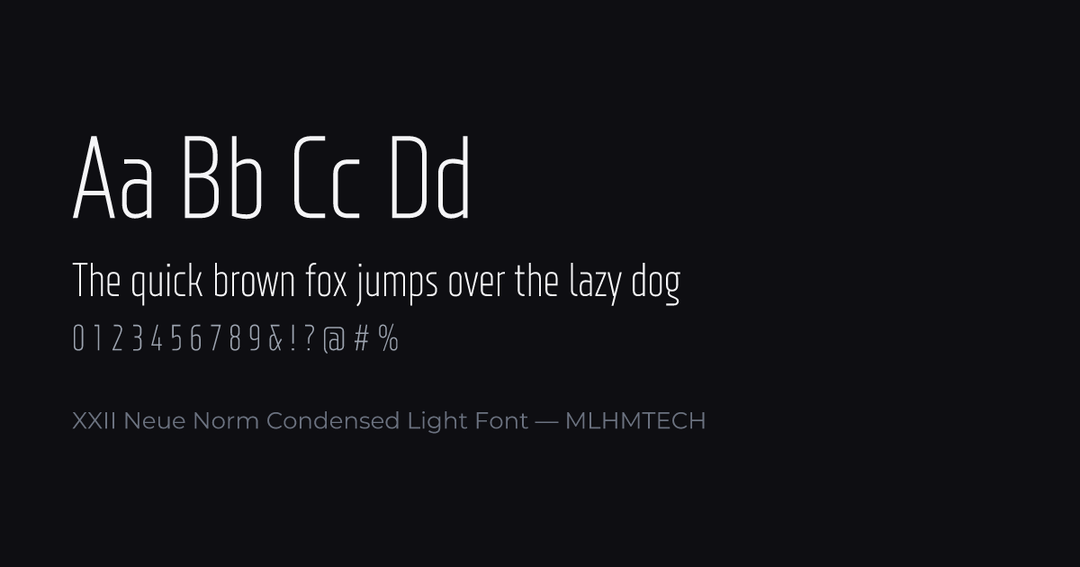
XXII Neue Norm Condensed Light Font
A sleek, condensed sans-serif font with a light weight, ideal for modern titles and minimalist branding.
XXII Neue Norm Condensed Light is a contemporary sans-serif typeface that combines geometric precision with a clean, airy aesthetic. Its condensed letterforms make it perfect for vertical space efficiency in video titles, lower thirds, and poster designs.
This font is part of the handpicked collection, ensuring high quality and versatility. Whether you're working on a corporate video, a fashion lookbook, or a tech presentation, this font adds a touch of sophistication without overwhelming your visuals.